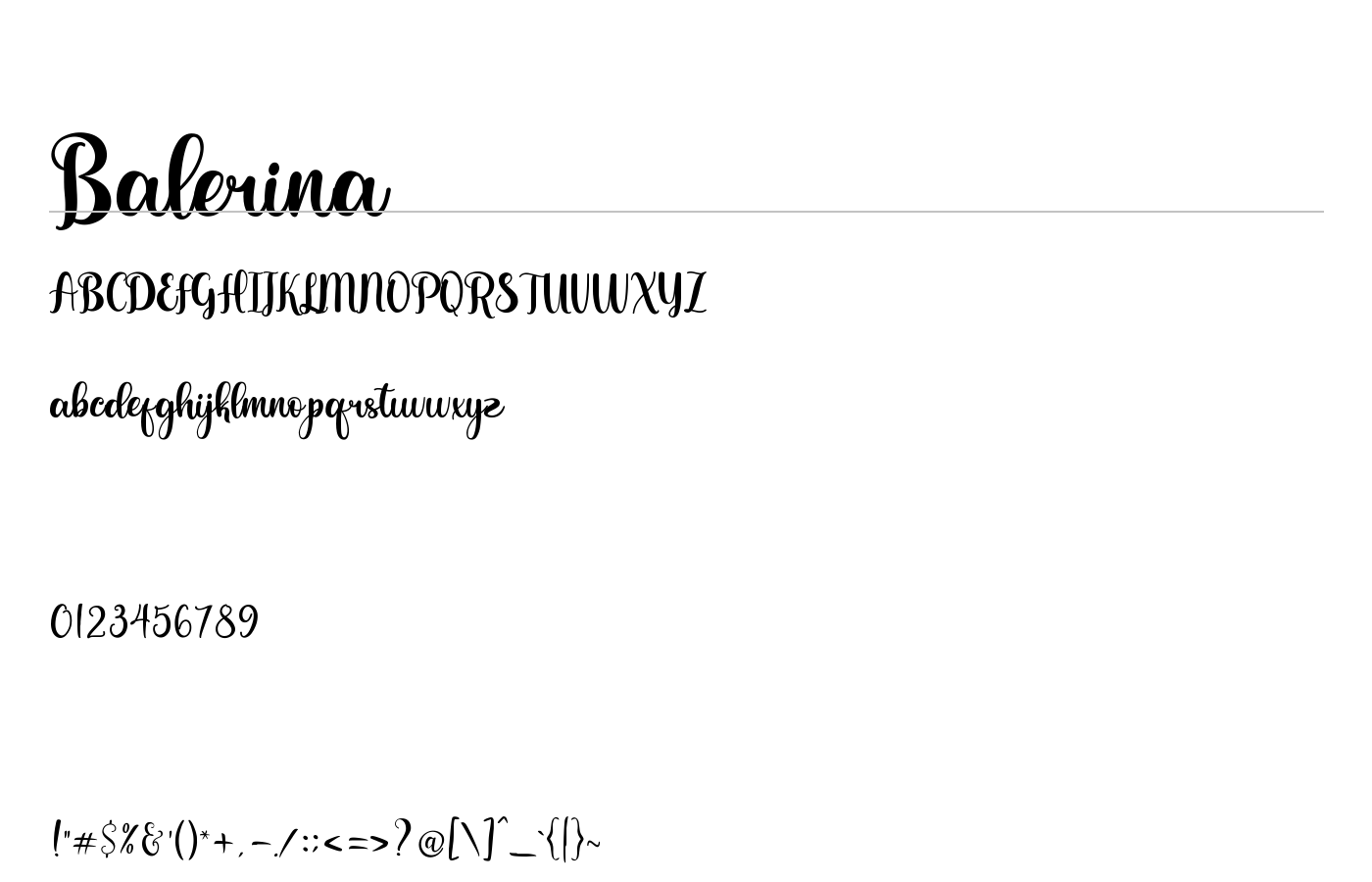
Balerina is a charming script font with a playful yet elegant feel, featuring smooth, flowing strokes and moderate contrast between thick and thin lines. Its tall x-height and slightly condensed letterforms give it a friendly and inviting personality that works beautifully for branding, invitations, and creative headlines. This font is ideal for projects seeking a sophisticated but approachable look, such as fashion logos, boutique packaging, and feminine editorial designs.
Balerina Font
About Balerina Font
| Font family | Balerina Font |
| Designer | Burhan Afif |